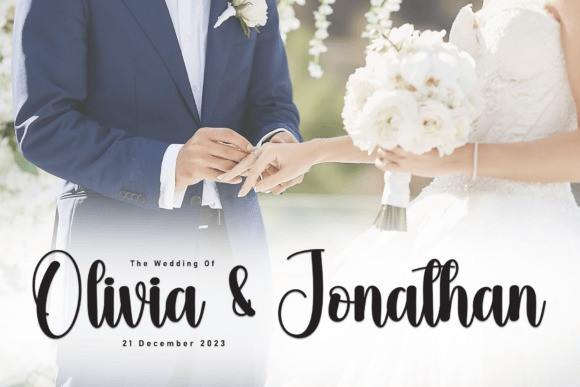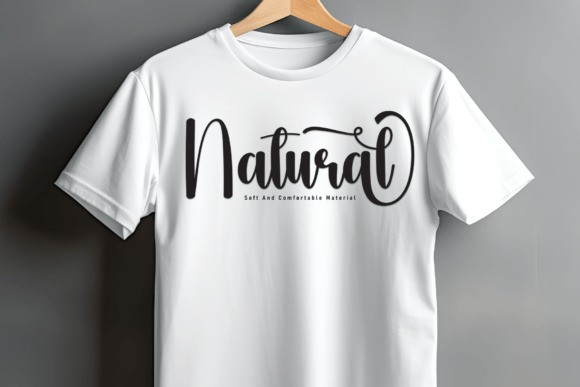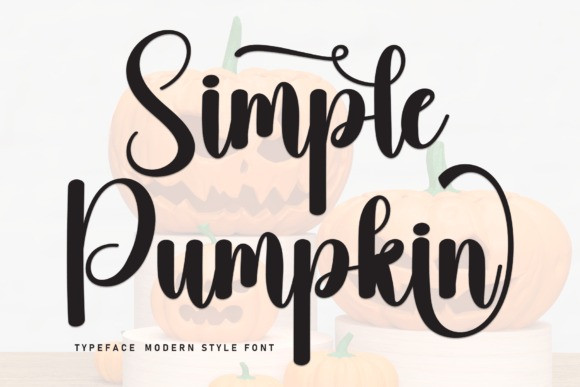
Simple Pumpkin Script Font
Simple Pumpkin Script Font is a lovely and timeless handwritten font. It is the best choice for creating eye catching logos, branding and quotes. Every letter has a unique and beautiful touch, which will make your design come alive!